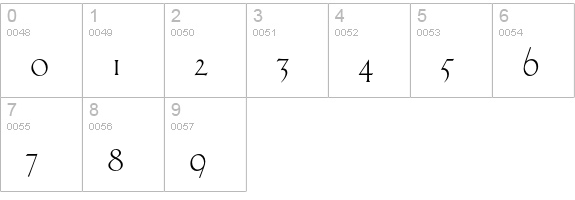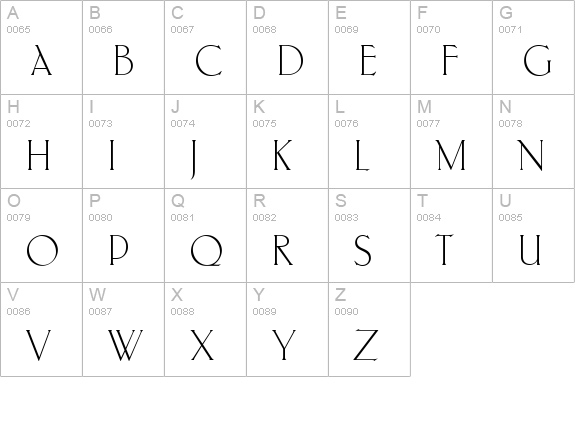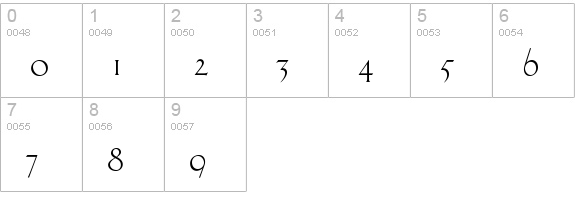
Ehmcke-HTF Font Details
Ehmcke-HTF is a stunning and elegant font that exudes sophistication and charm. With its unique design and stylish flourishes, this font is perfect for adding a touch of class to any project. The clean lines and graceful curves of Ehmcke-HTF make it a versatile choice for a wide range of design applications, from invitations to branding to editorial design. What sets Ehmcke-HTF apart is its timeless appeal and classic aesthetic. Whether you're creating a wedding invitation, a logo for your business, or a magazine layout, this font will bring a touch of elegance to your project. The harmonious balance of its letterforms and the attention to detail in its design make Ehmcke-HTF a standout choice for designers looking to make a statement. And the best part? Ehmcke-HTF is available for free download at FontsMarket.com. Whether you're a seasoned designer or just starting out, you can access this beautiful font at no cost and use it to elevate your creative projects. Don't miss out on the opportunity to add Ehmcke-HTF to your font collection and bring a touch of sophistication to your designs.